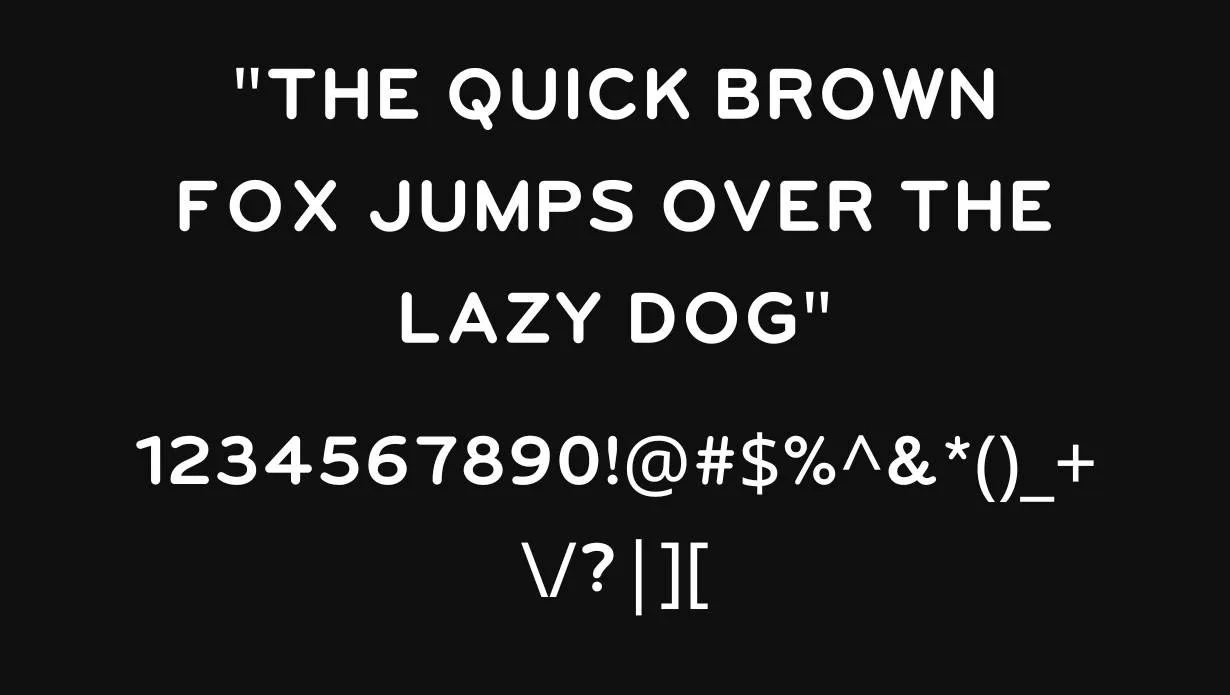
Ugo Font is a very unique typeface with lots of colors and styles. It was designed by Valeria Santarelli. This font belongs to the Sans-Serif font family class. It has six amazing designs which make it perfect for all types of projects such as Ugo Dpois, Ugo Engreved, Ugo Drain, Ugo Dcolor, Ugo Color, and Ugo Line. It also supports many international languages.
| Name | Ugo Font |
| Designer | Valeria Santarelli |